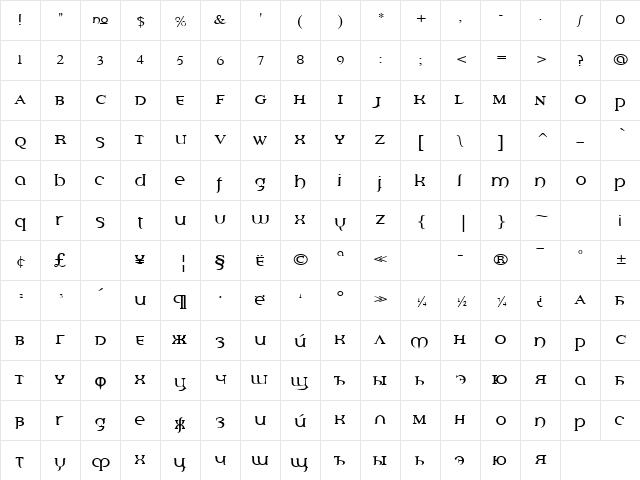
Percolator Cyr Regular
Design Context for Percolator Cyr Typeface
Percolator Cyr is a composed and adaptable typeface that performs quietly and consistently across a wide range of design contexts.